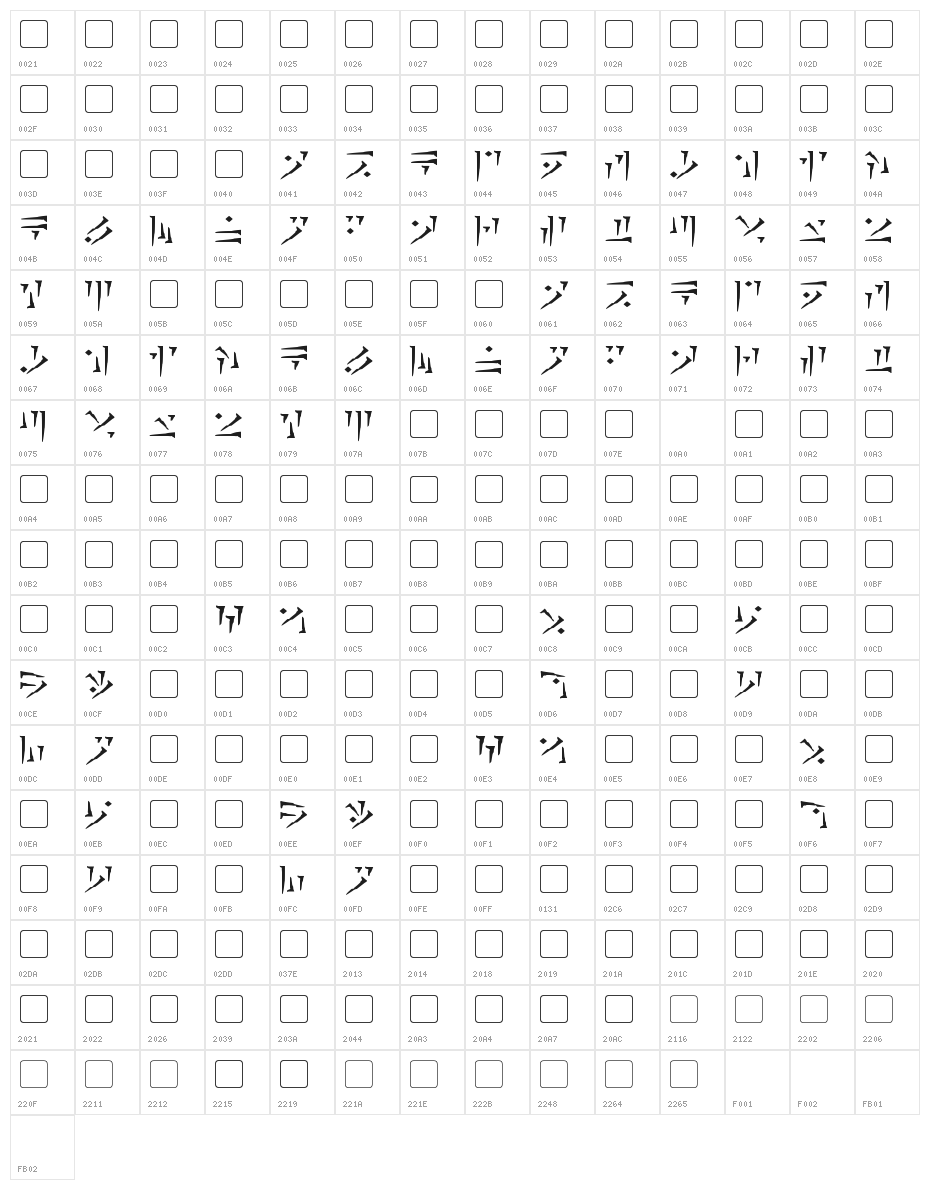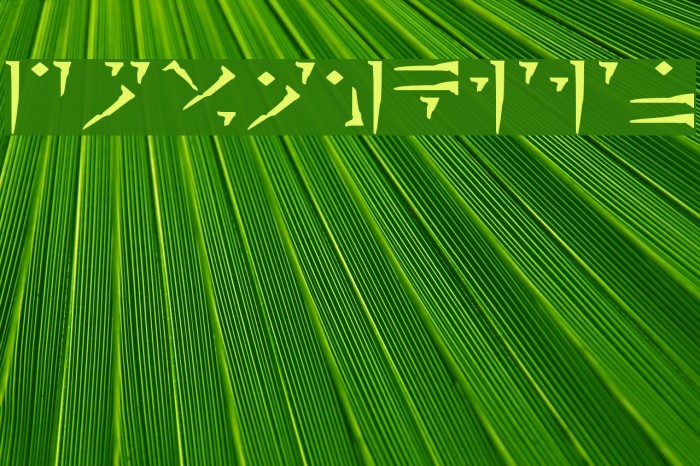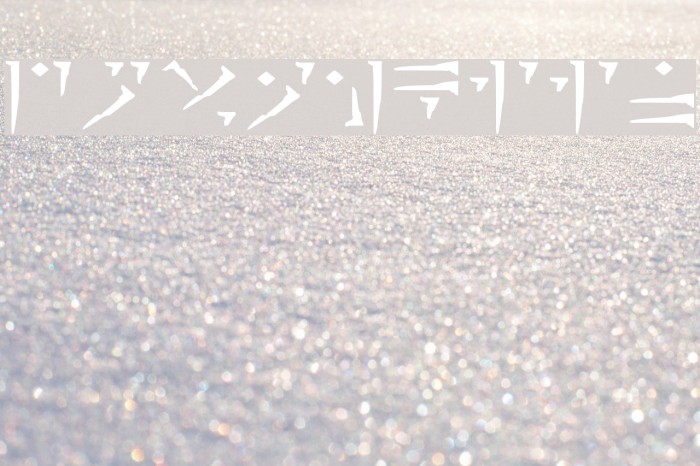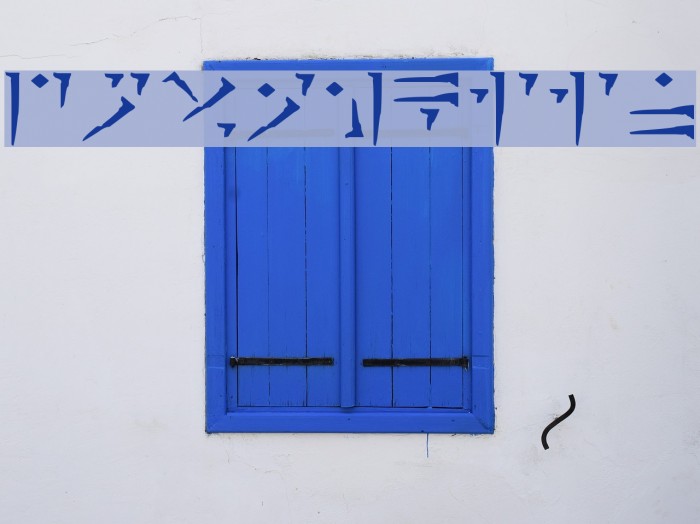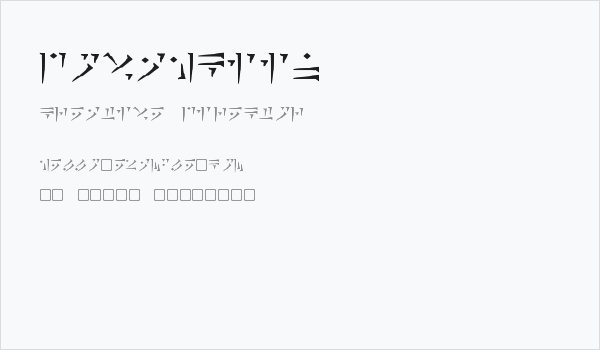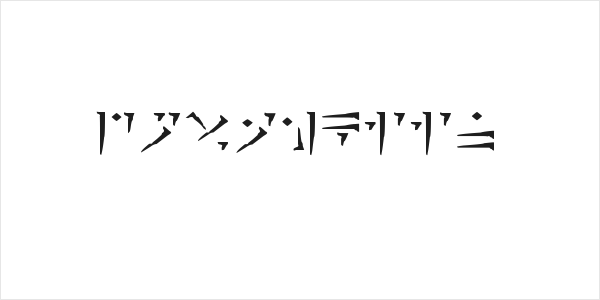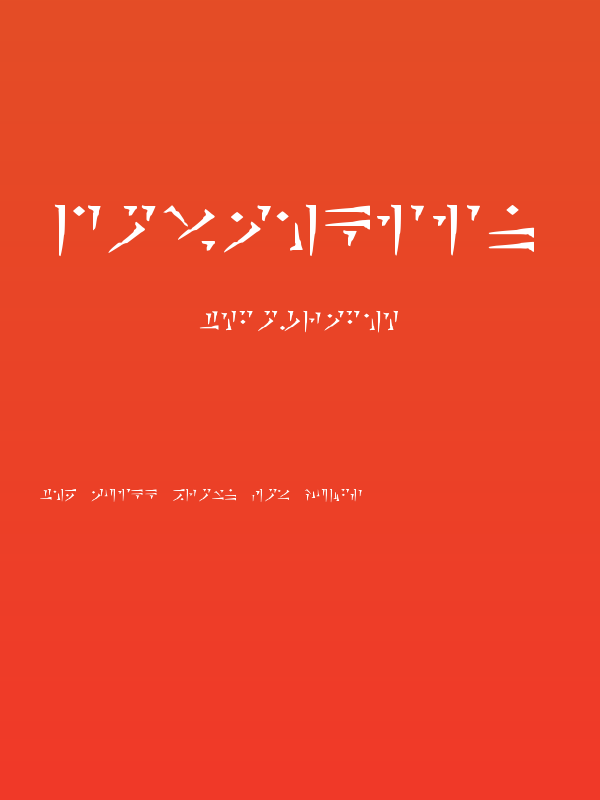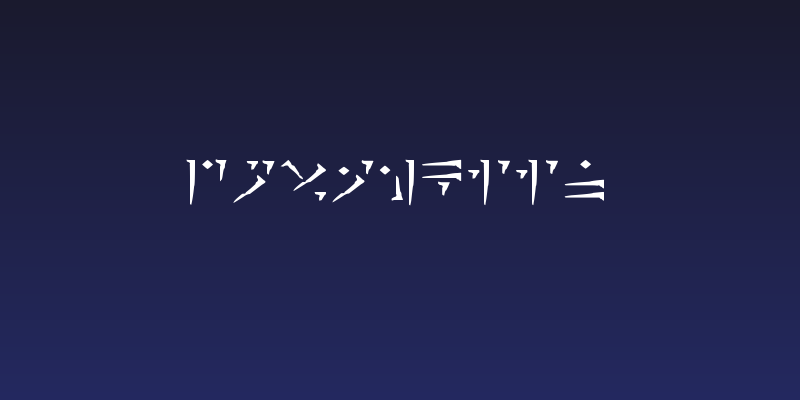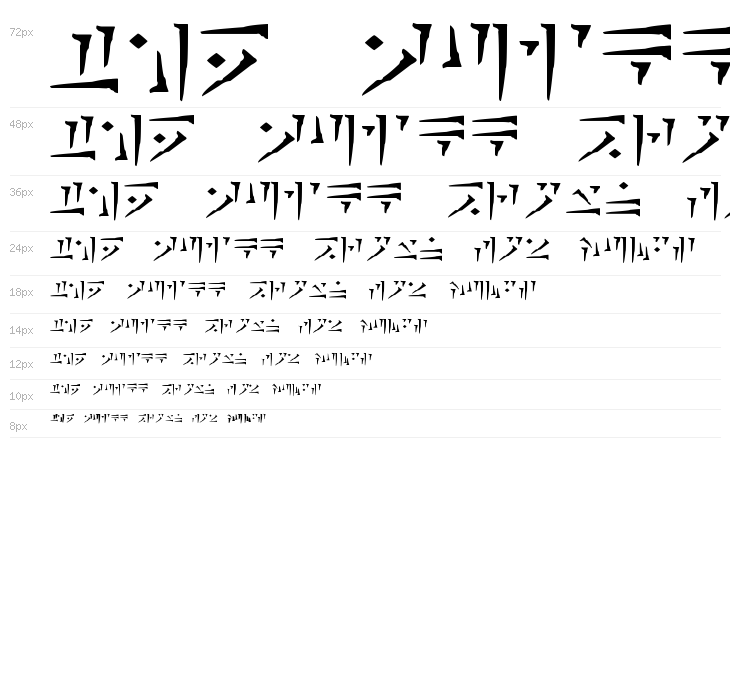
Dovahkiin Font
Dovahkiin Description
This font is inspired by ancient runic scripts, featuring sharp, angular lines and a distinct, mystical appearance. The characters are bold and striking, with a unique style that evokes a sense of mystery and fantasy. The design is reminiscent of ancient inscriptions, making it ideal for projects that require a touch of the fantastical or historical. The font's aesthetic is both captivating and enigmatic, perfect for creating a dramatic visual impact.
Overall StyleMystical, Ancient, Fantasy
Proposed ProjectsPerfect for fantasy-themed projects, video game titles, movie posters, book covers, and any design requiring a mystical or ancient touch.